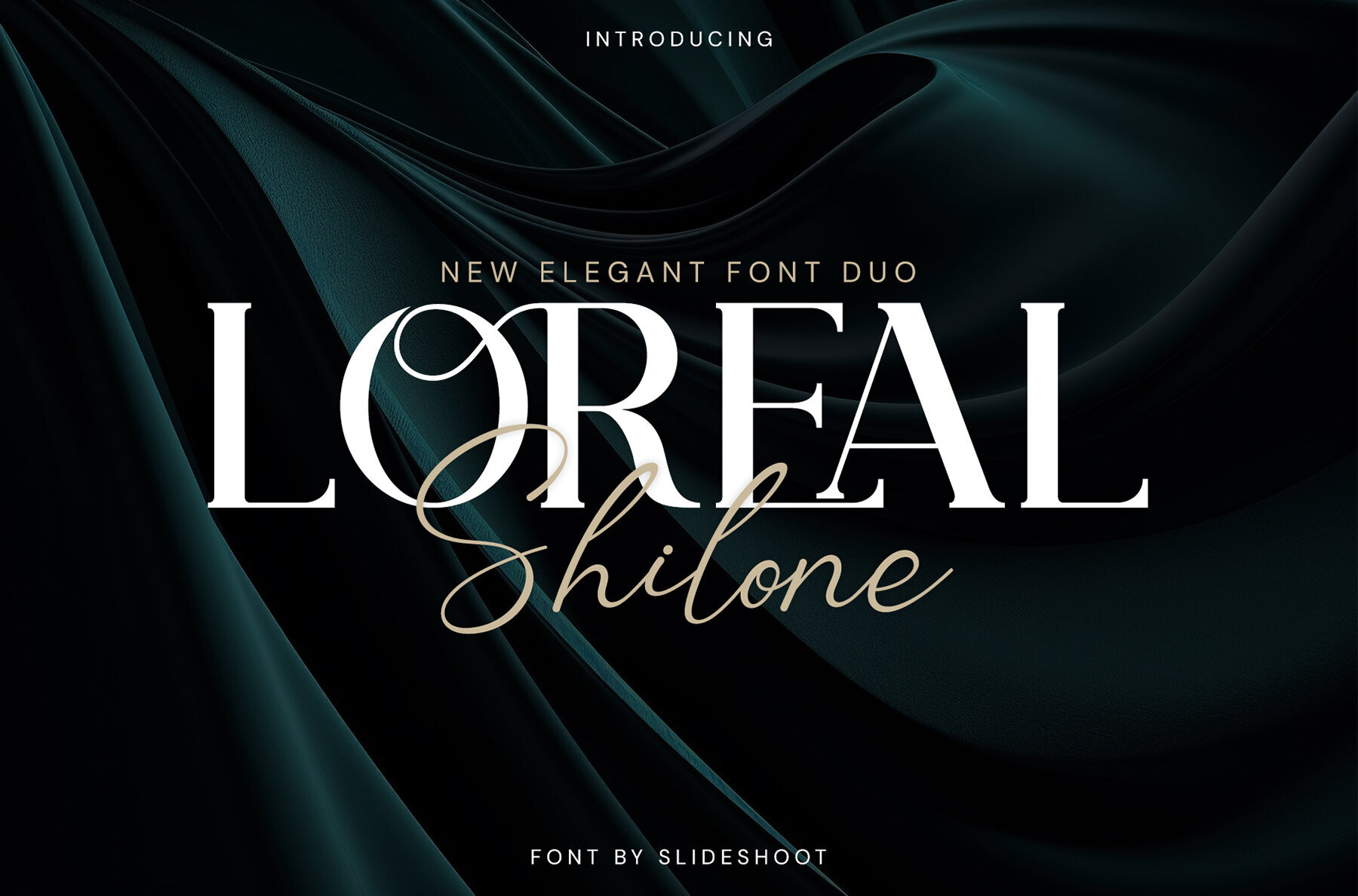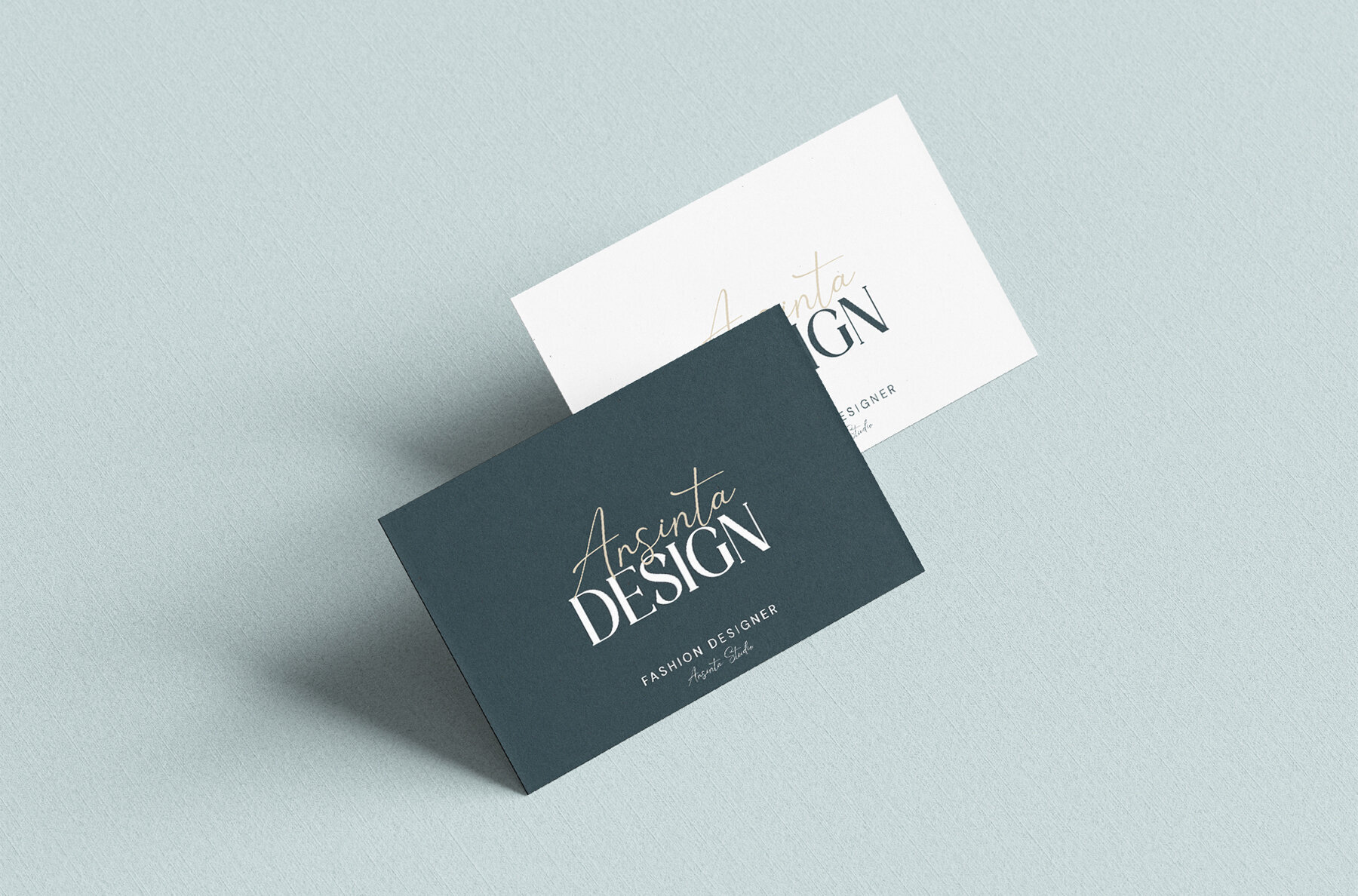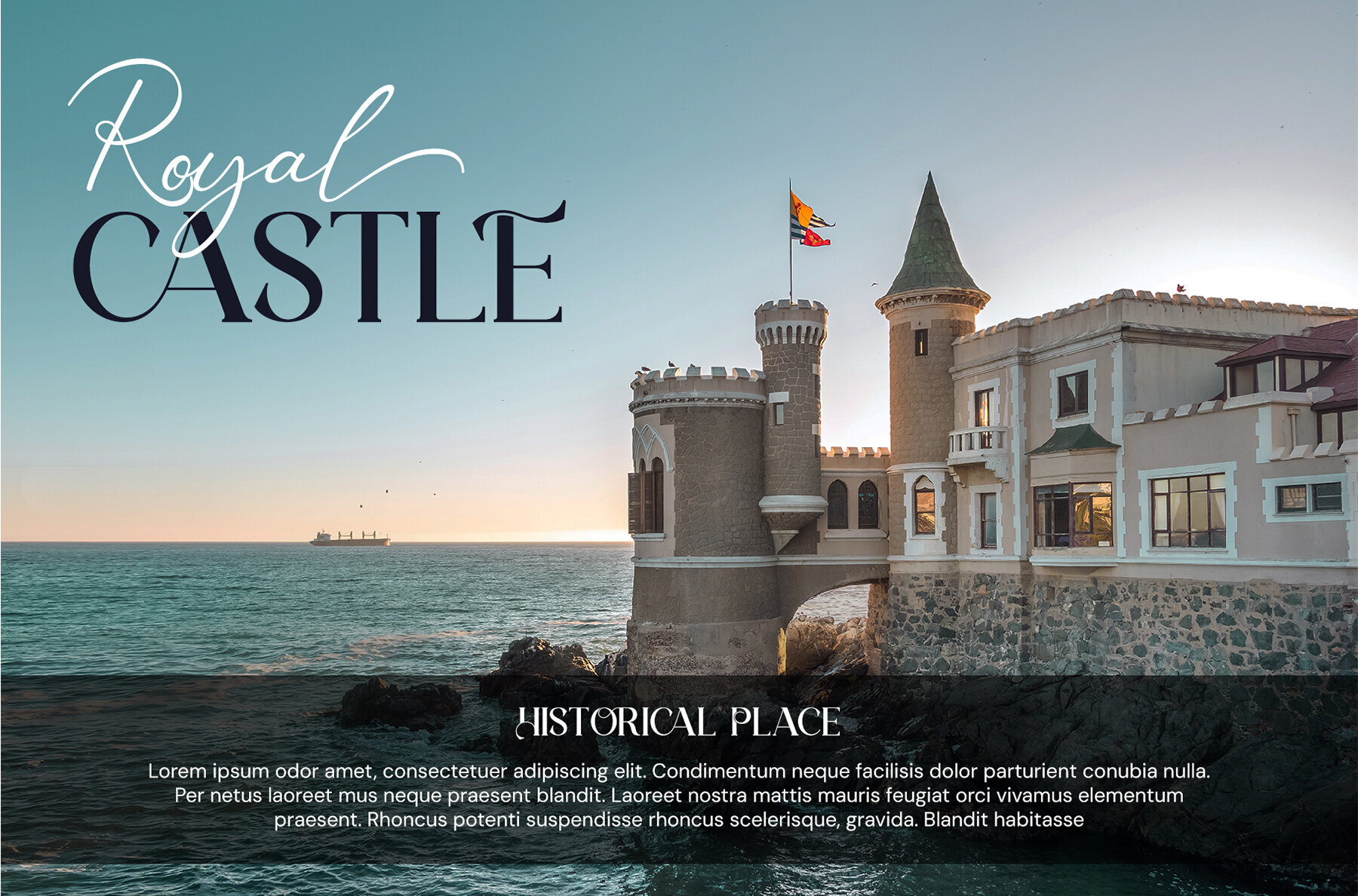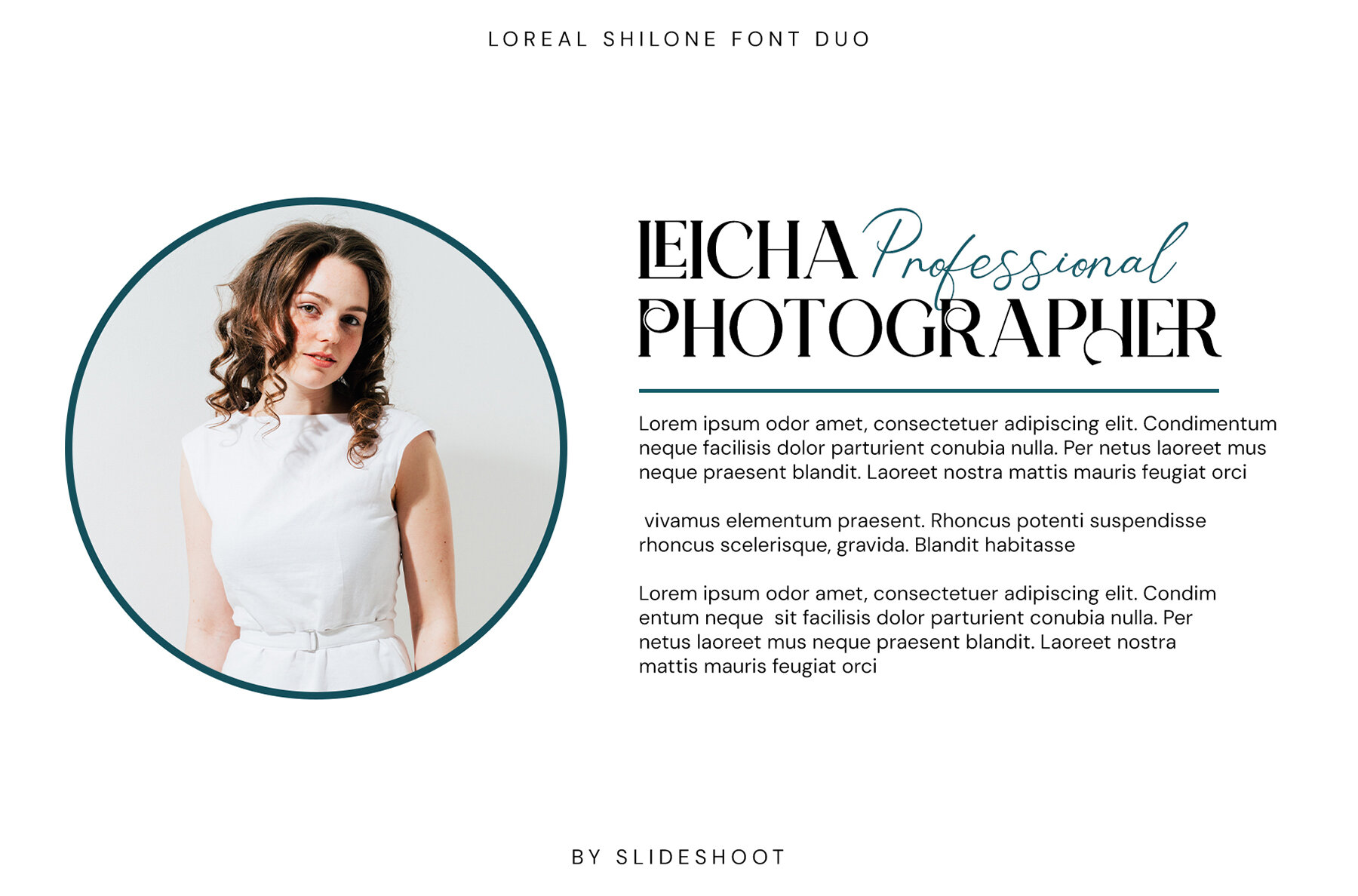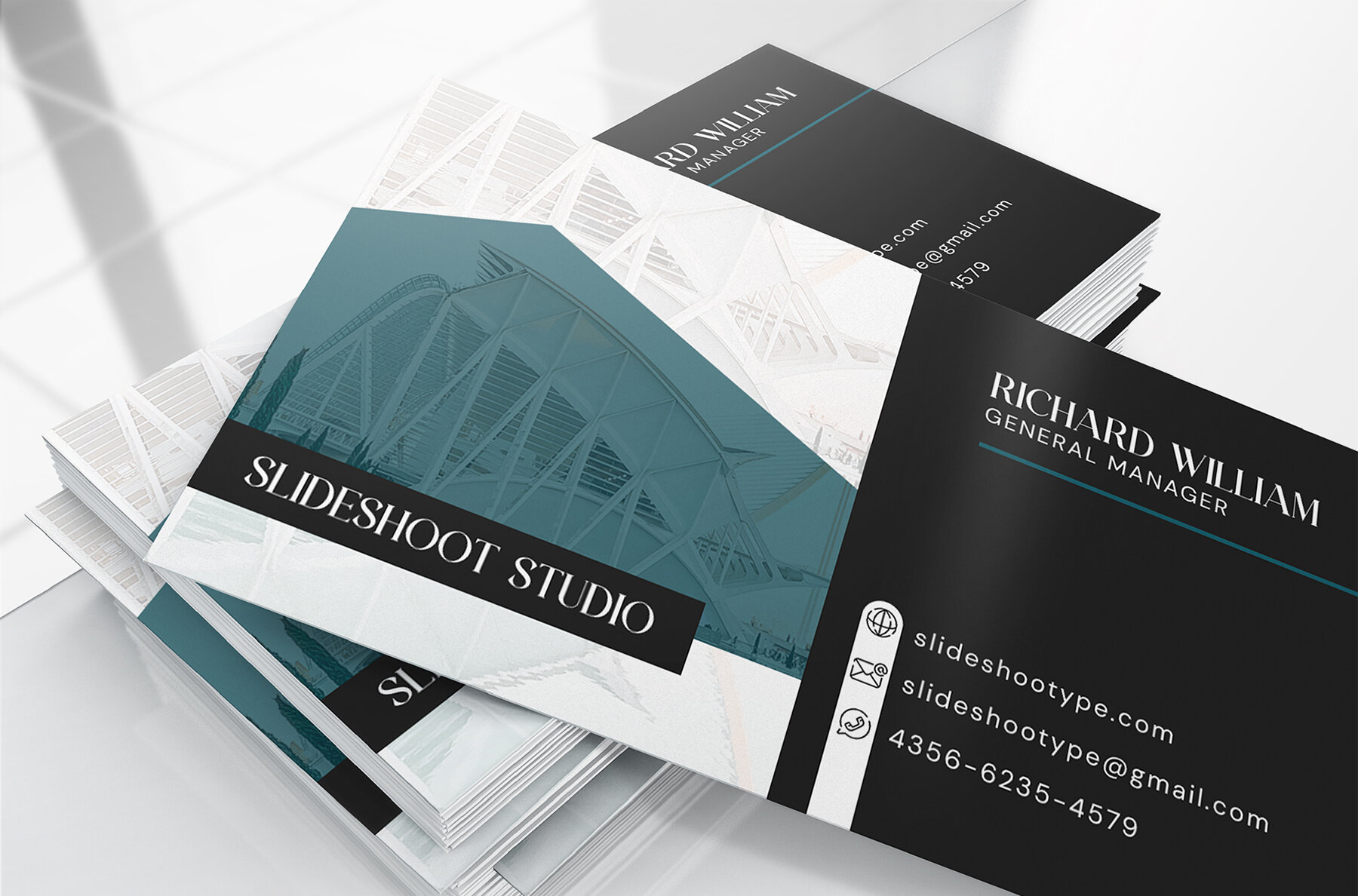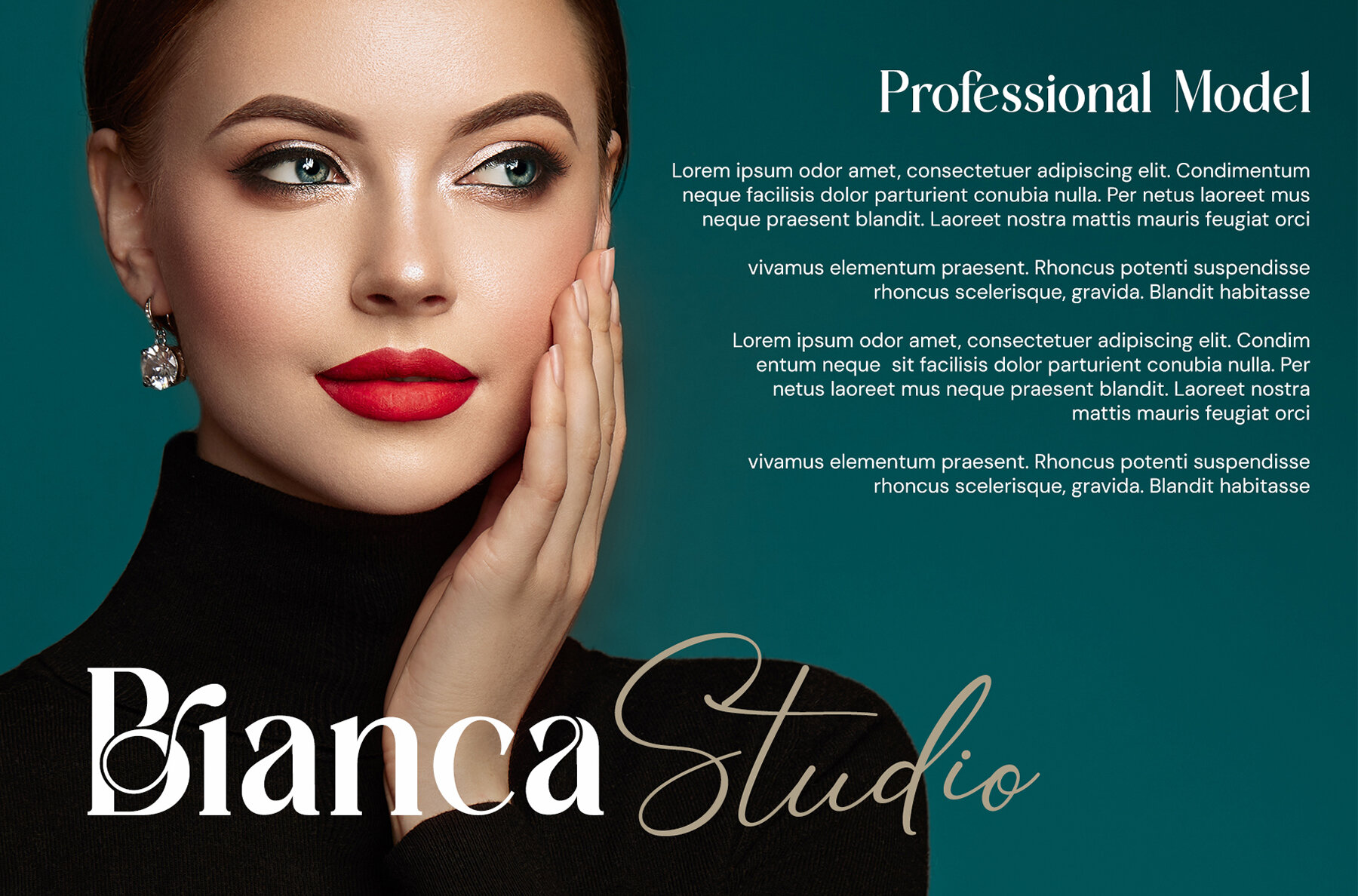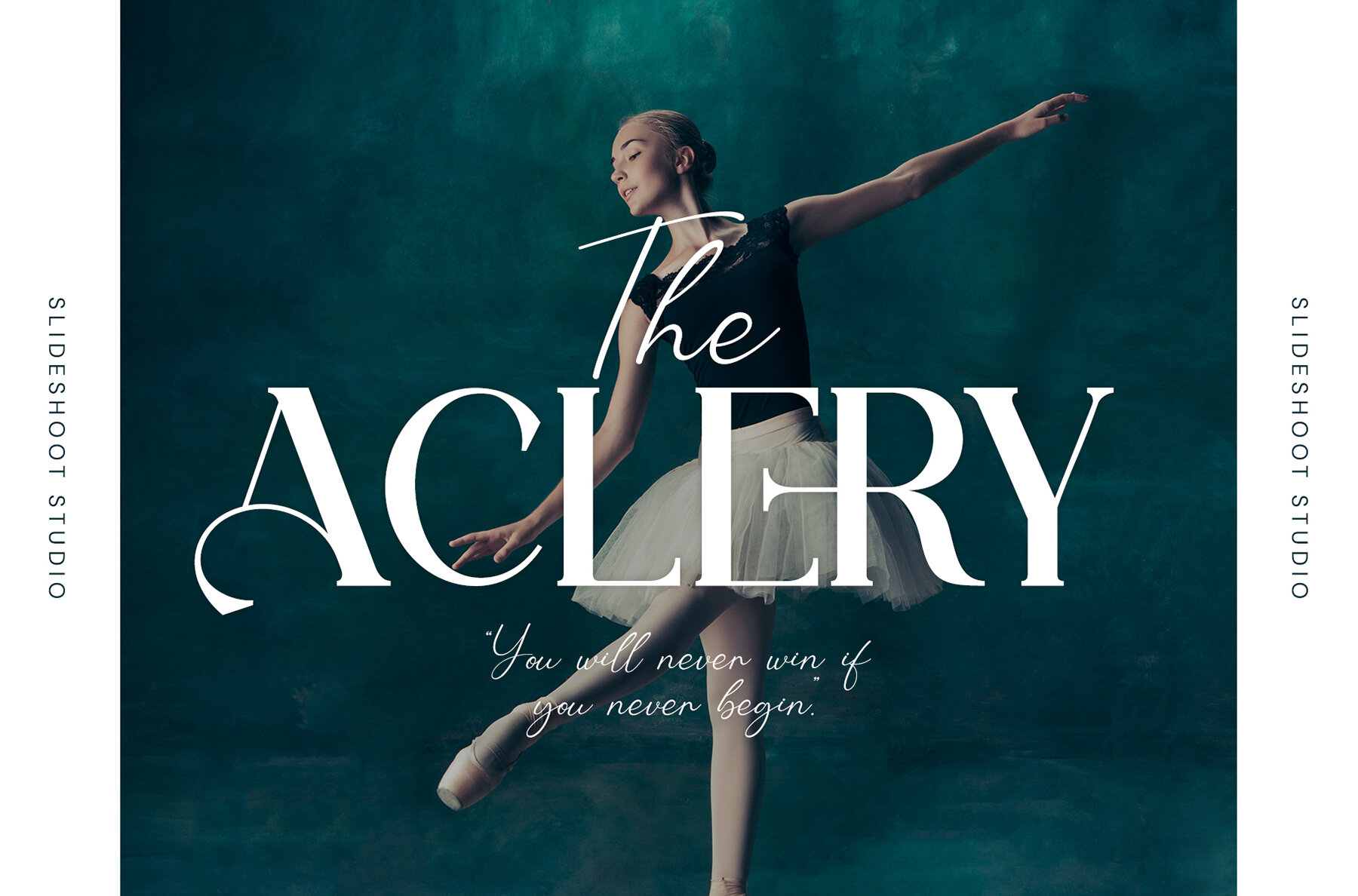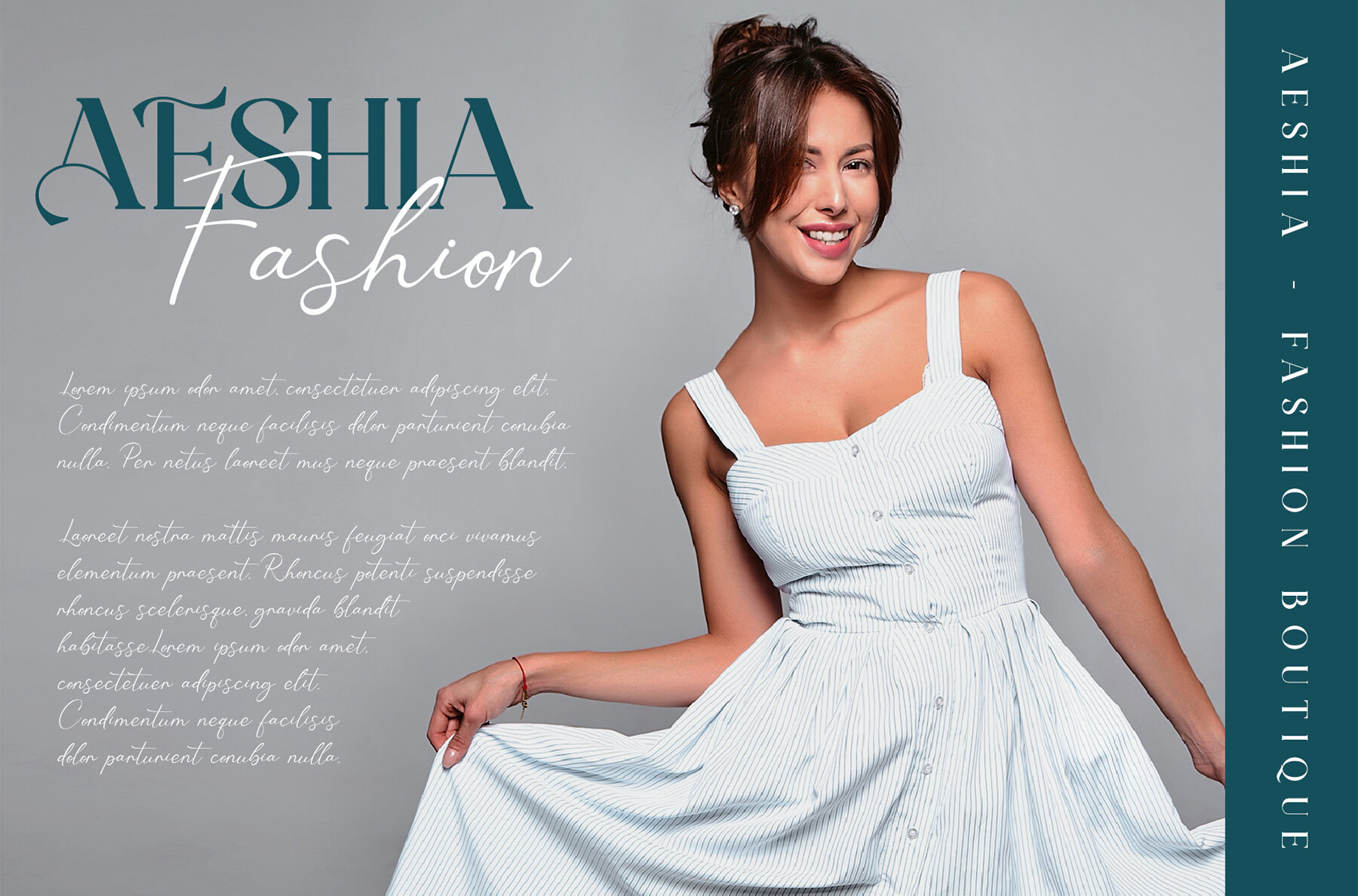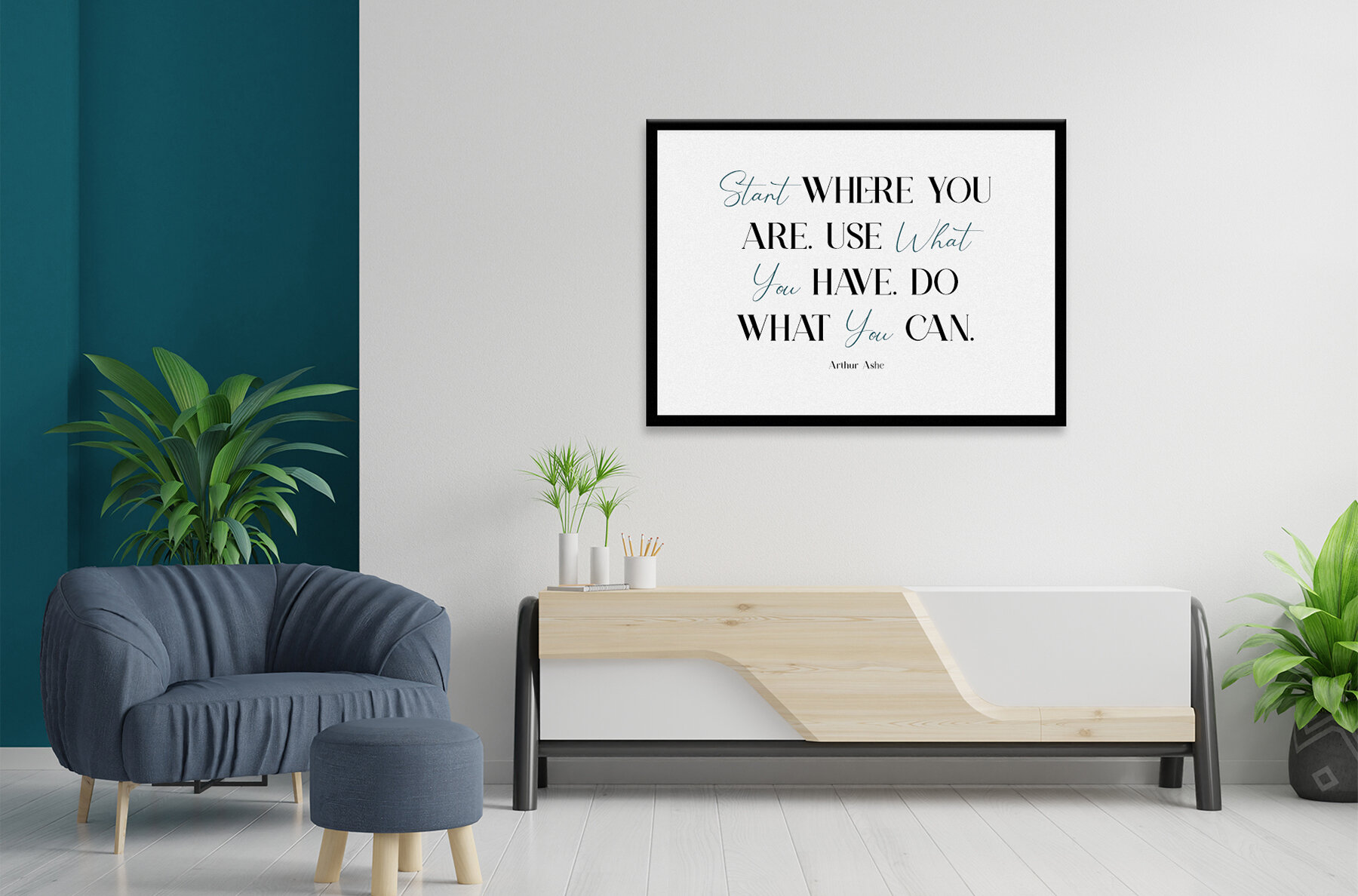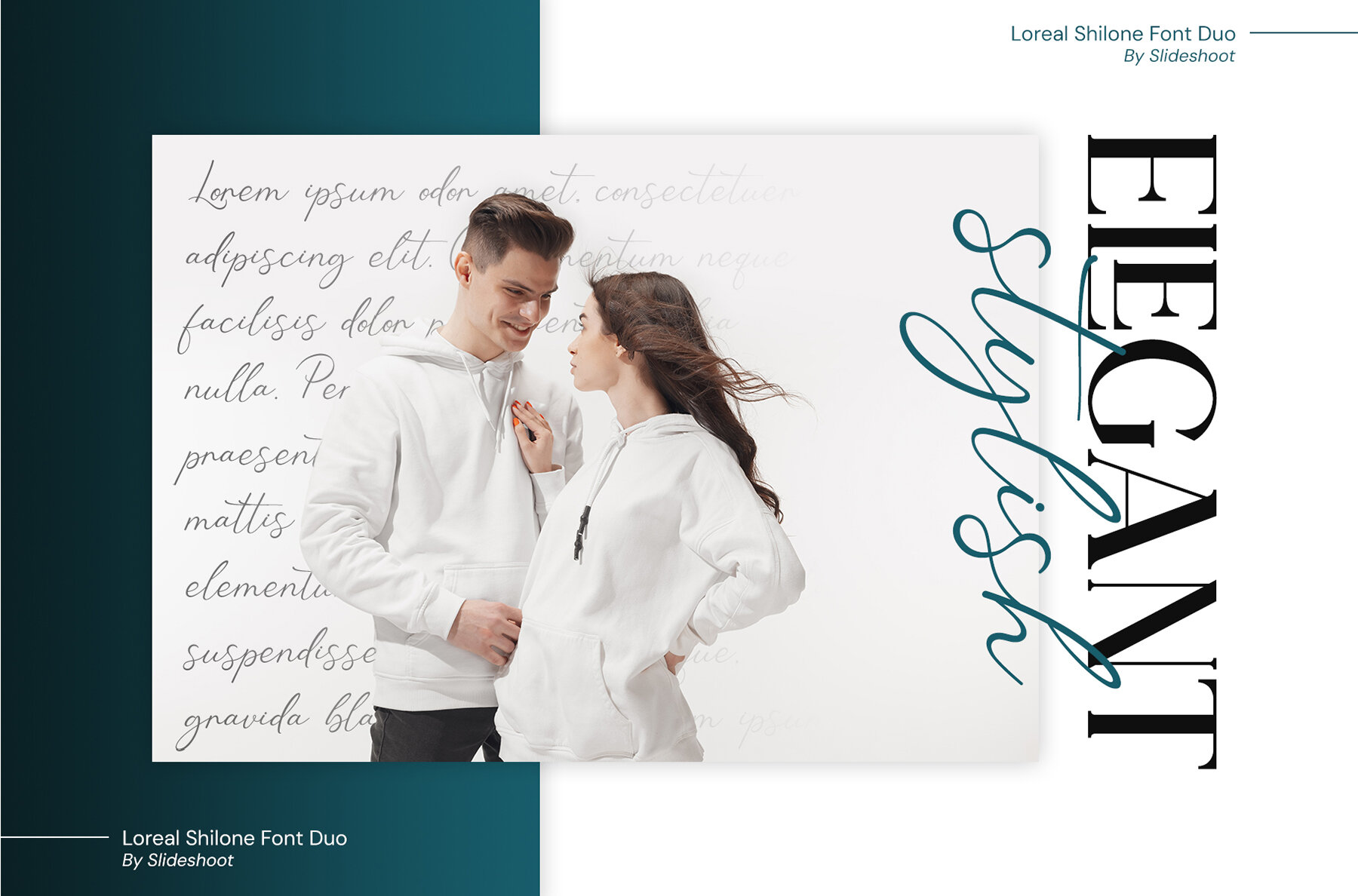
Loreal Shilone Font
This sophisticated serif font boasts high contrast between thick and thin strokes, making it ideal for elegant branding, luxury editorial designs, and premium product packaging. Perfect for adding a touch of refined elegance to high-end design projects, its ornate letterforms and italic style offer a classic yet contemporary appeal.